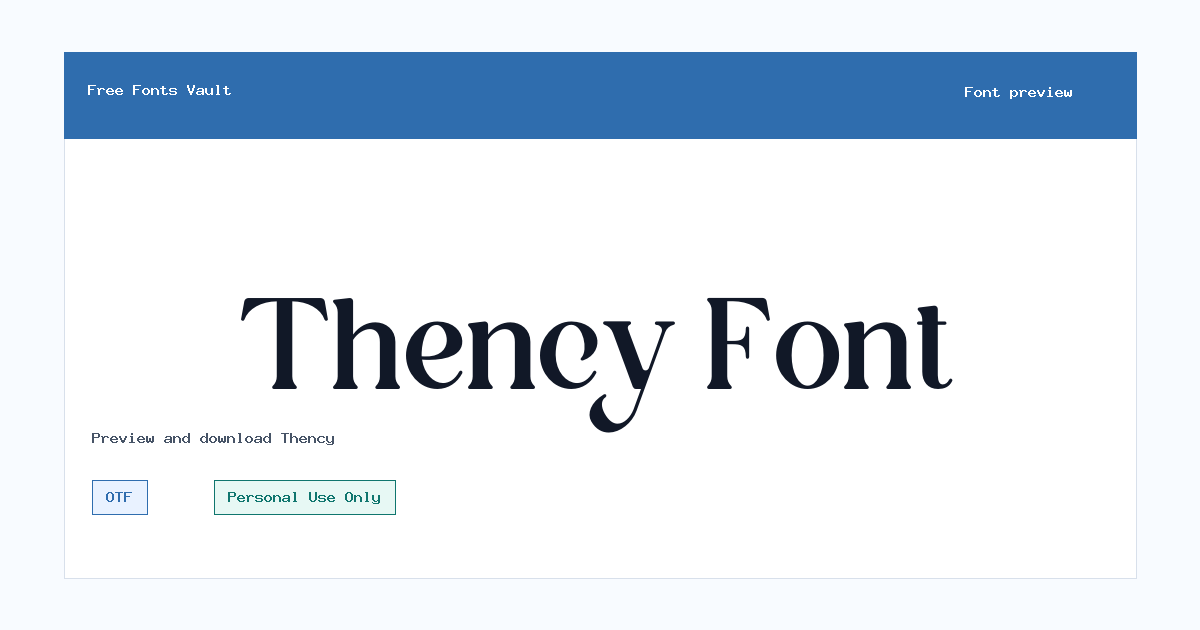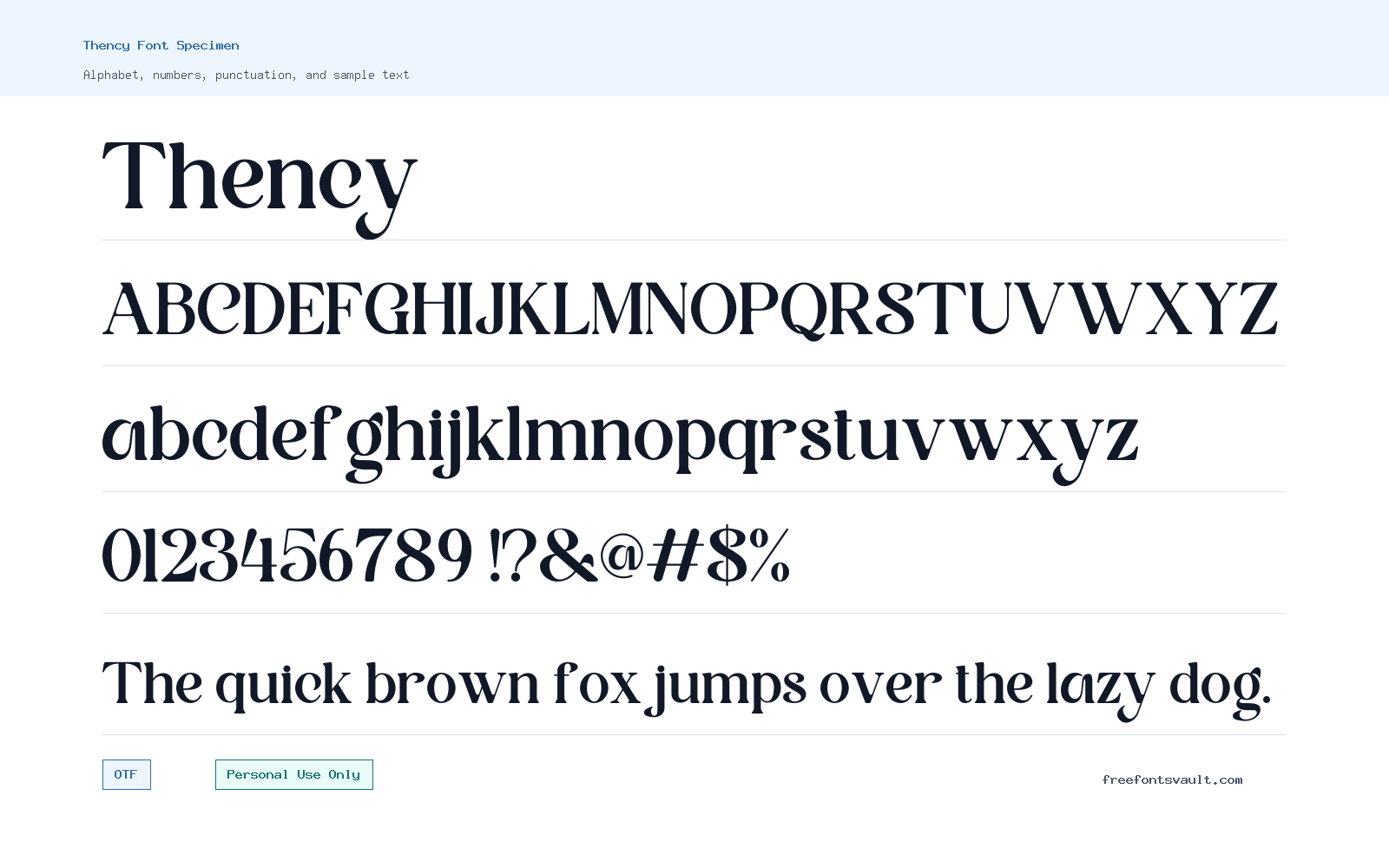
Thency
Thency font preview showing the family name
Thency Font
Thency font specimen showing alphabet, numbers, and sample text
Thency font.
Thency is a serif font from ErmediaStudio, offered as an OTF file for personal-use projects. It is a good font to test when you need a more composed, type-led look for short text, titles, and visual layouts.
About Thency Font
Thency works best as a display-style serif rather than a long-reading text face. Use the preview tool to test the exact words you plan to design with, especially if your project depends on a logo-like title, a name, a heading, or a short phrase. Serif fonts can change a lot from word to word, so checking letter spacing, uppercase forms, punctuation, and number shapes before downloading is worth the extra minute.
• Serif styling suited to short display text and headings
• Personal invitations, title graphics, and social posts
• Headings, name treatments, labels, and short branding mockups
What kinds of projects suit Thency?
It is best tested for short text such as headings, invitation titles, social graphics, labels, names, and display layouts. For paragraphs, pair it with a plainer reading font.